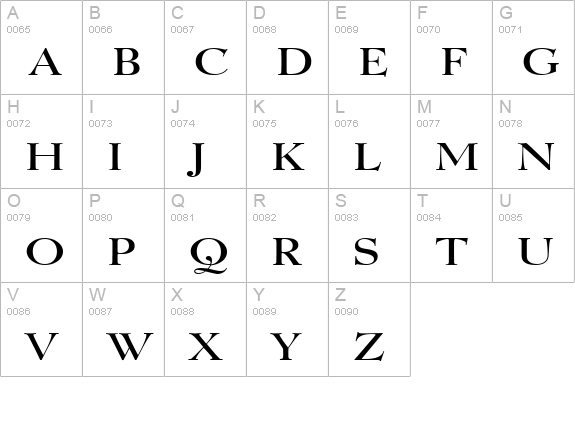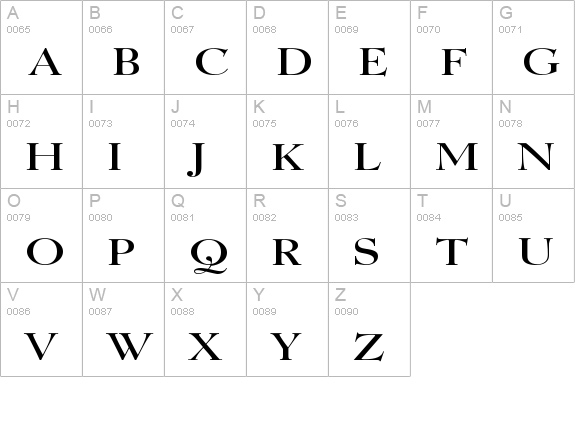
Luciano Wide Normal is the standard, neutral, extended-width variant in the Luciano typeface family \xE2\x80\x94 well suited to general body text, paragraphs, and standard typographic work.
Luciano Wide Normal is a versatile and modern font that exudes sophistication and elegance. With its wide letterforms and balanced proportions, this typeface is perfect for creating eye-catching designs that demand attention. The clean lines and subtle curves of Luciano Wide Normal make it ideal for a wide range of projects, from branding to editorial design. The best part? Luciano Wide Normal is available for free download at FontsMarket.com. Whether you're a seasoned designer looking to add a new font to your collection or a beginner searching for the perfect typeface for your project, Luciano Wide Normal is a fantastic choice. Don't miss out on this opportunity to enhance your designs with this stunning and versatile font. Download Luciano Wide Normal today and take your projects to the next level.